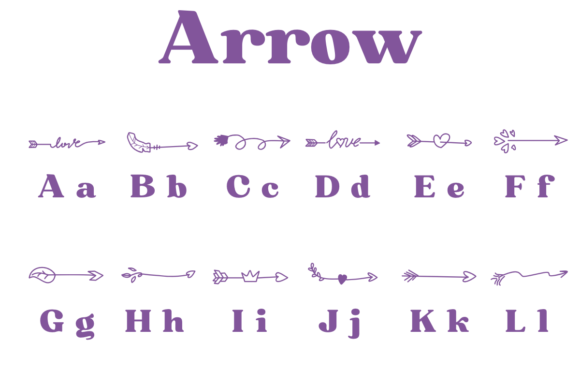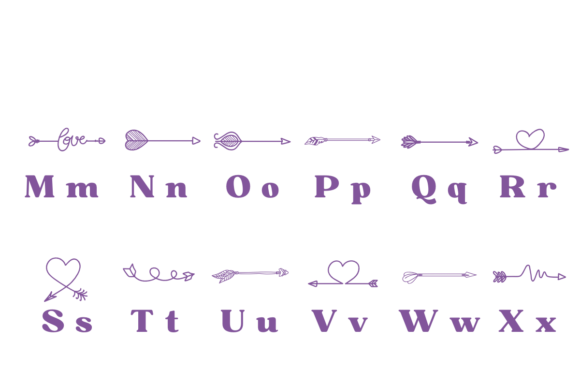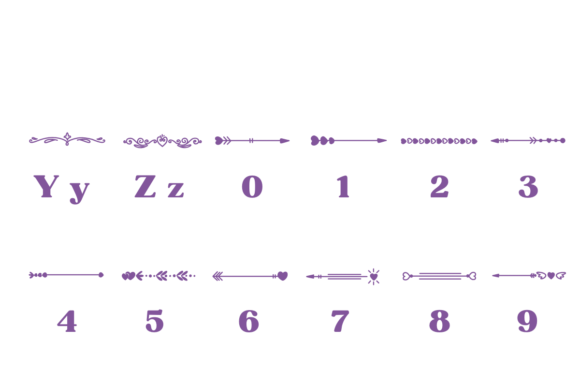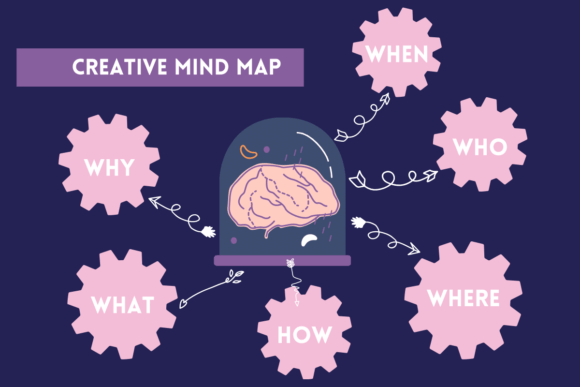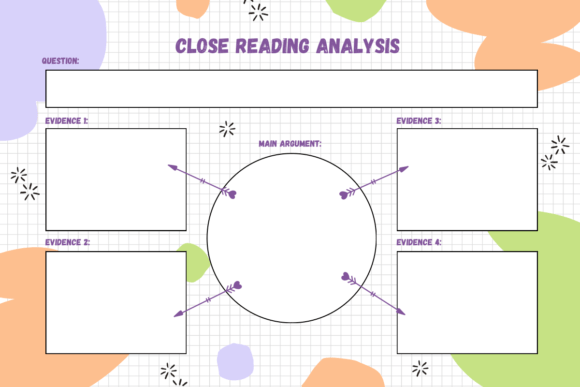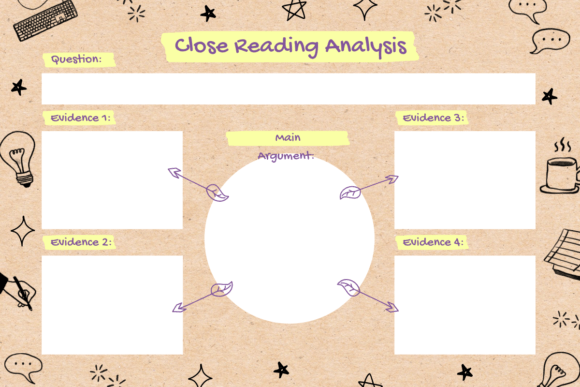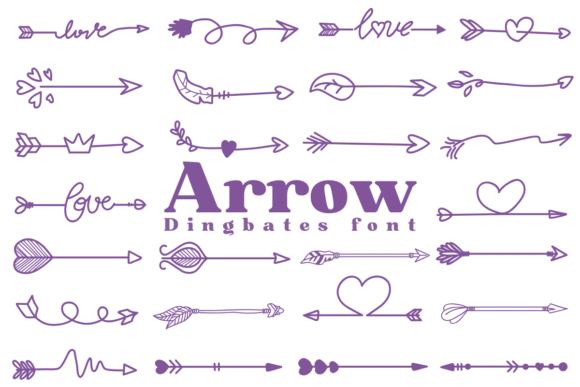
The Secret Code of Arrow Font: Adding Fun Directions to Your Designs
I still remember the design project that made me fall in love with the Arrow font. I was working on a quirky branding campaign for a new outdoor gear company, and my client asked me to create a logo that would ‘point’ customers in the right direction. I was stuck – until I stumbled upon the Arrow font. It was like a secret code made of arrows! Each letter was replaced by a different arrow shape, and I knew I had found the perfect solution. In this article, I’ll share my experience with the Arrow font, its features, and how to use it in your designs.
What I Love About Arrow Font
Here’s what makes the Arrow font special:
- ✨ Unique and playful design: The Arrow font is a game-changer for designers looking for something fresh and fun.
- ✅ Easy to use: With its simple and intuitive design, you can quickly create stunning visuals.
- 💡 Versatile: Use it for headings, titles, or even as a decorative element in your designs.
While the Arrow font is amazing, there are a few things to keep in mind:
- 🤔 Limited legibility: As with any decorative font, it’s not ideal for body text or long paragraphs.
The Story Behind Arrow Font
The Arrow font was inspired by the work of Herb Lubalin, a renowned designer known for his creative typography. The font’s designer aimed to capture the essence of Lubalin’s playful and directional style, resulting in a unique and versatile font.
| Q: What is the Arrow font best used for? | A: The Arrow font is ideal for headings, titles, and decorative elements in designs. |
| Q: Can I use the Arrow font for body text? | A: While possible, the Arrow font is not recommended for body text due to its limited legibility. |